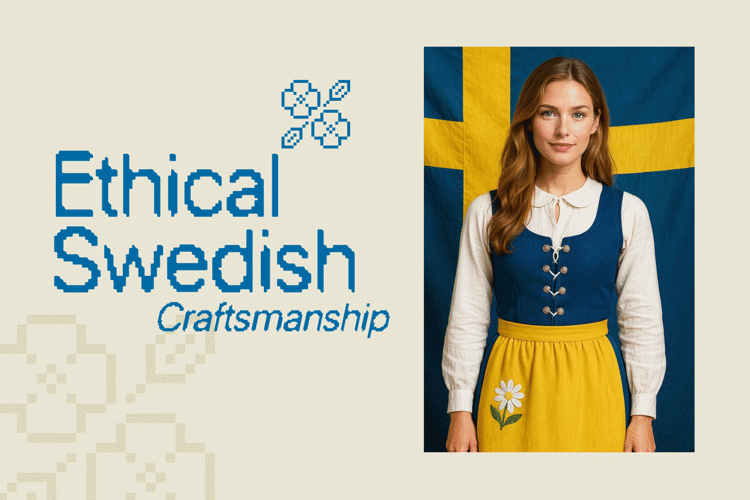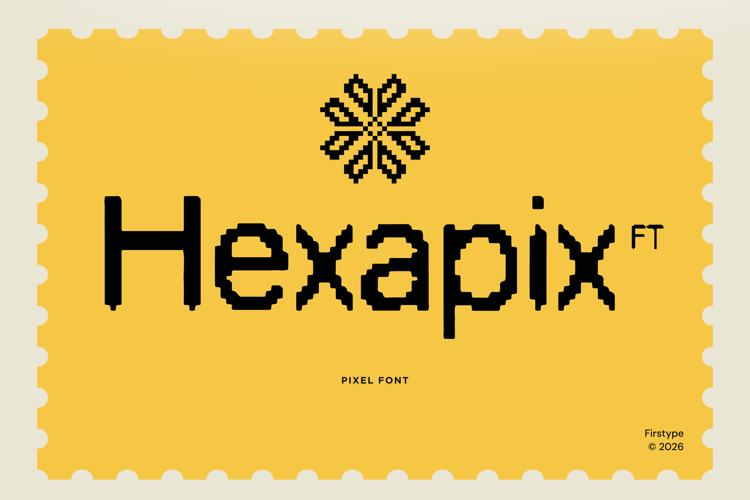
FT Hexapix - Nordic Pixel Display Font
Discover the intersection of Nordic heritage and modern digital grids with FT Hexapix. This modular pixel typeface is meticulously crafted to bring an artisanal, geometric flair to your creative work. Whether you are building a retro-inspired indie game, designing a clean UI, or experimenting with contemporary digital folk aesthetics, FT Hexapix offers a unique, structured charm that stands out from the crowd ◈.ᐝ
Features
* Precise 16x16 grid construction
* High legibility for both display headlines and UI elements
* Clean, geometric pixel-art aesthetic
* Multilingual support for Western & Central European languages
Languages
* Basic Latin
* Western European
* Central European
* Pan-African Latin
* Over 300+ glyphs included